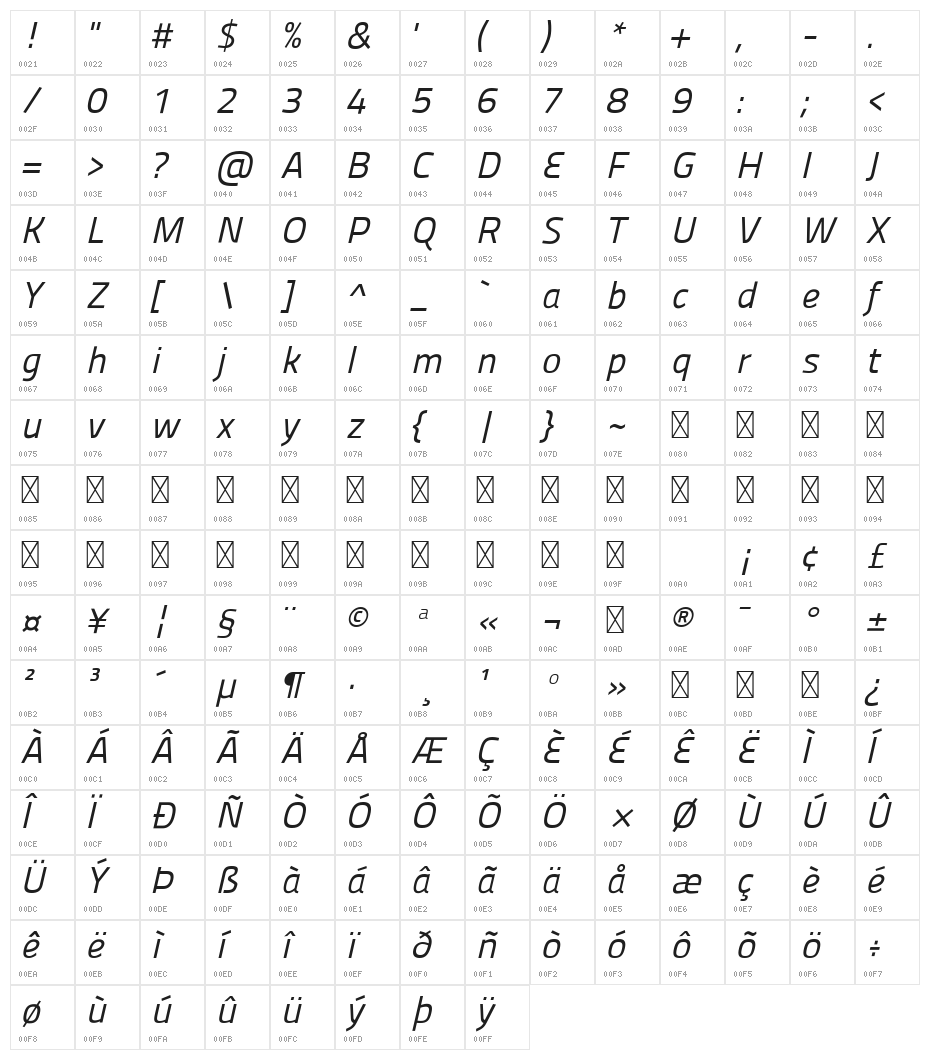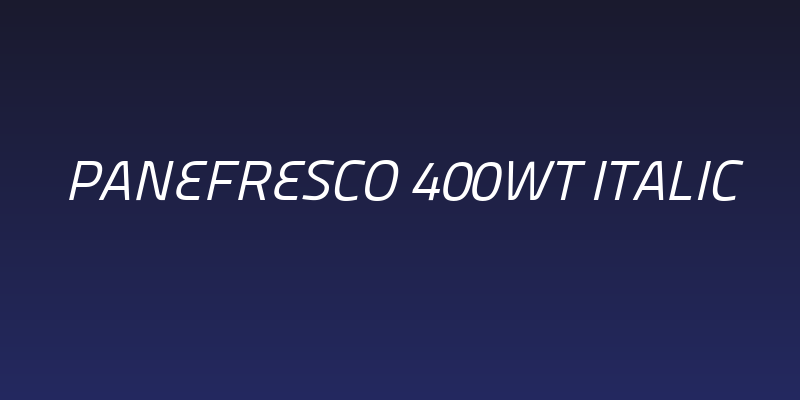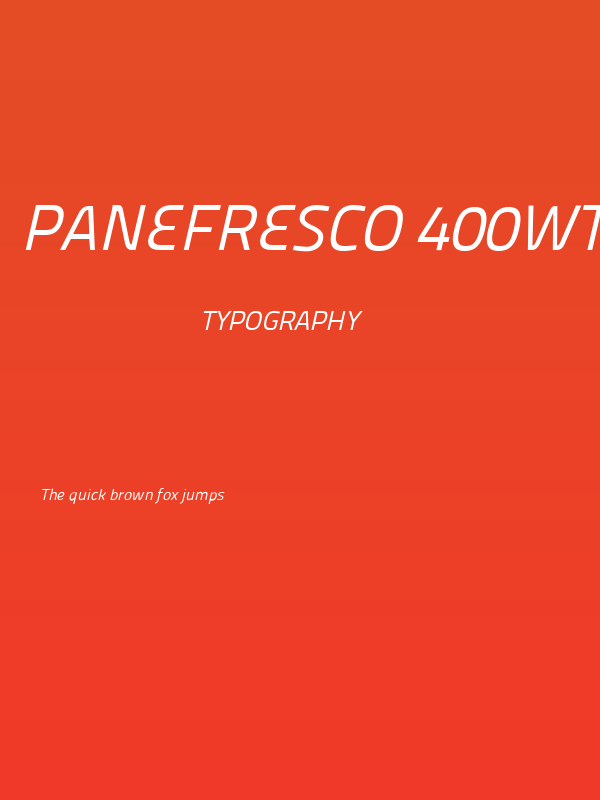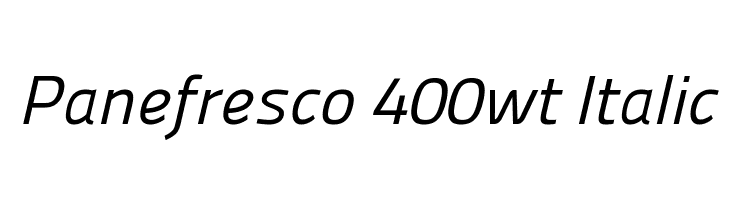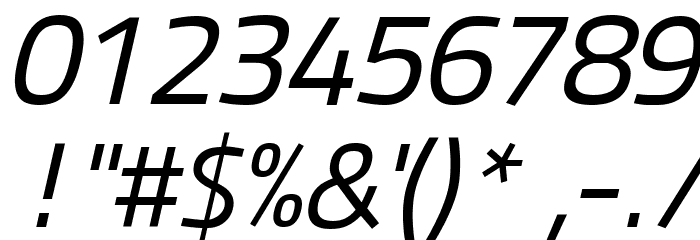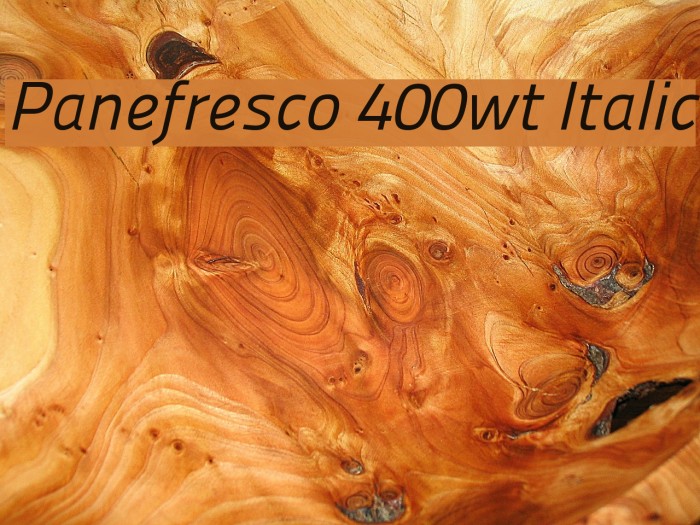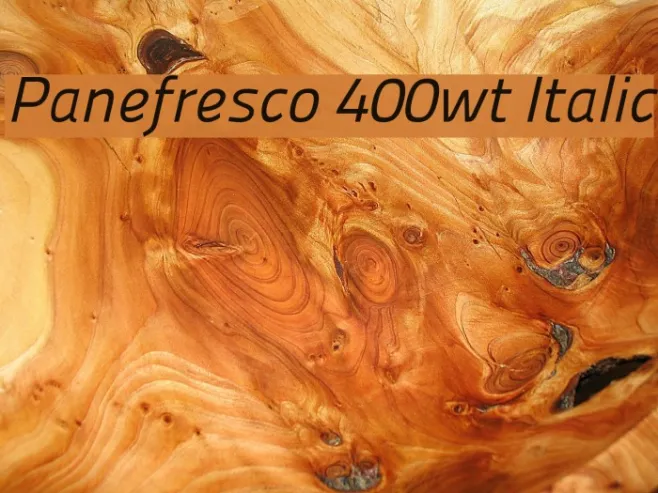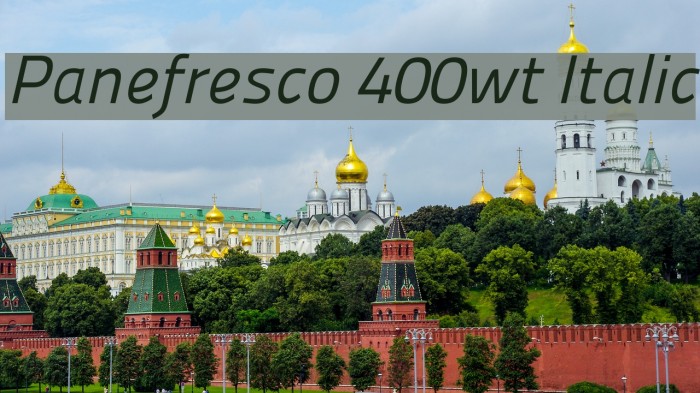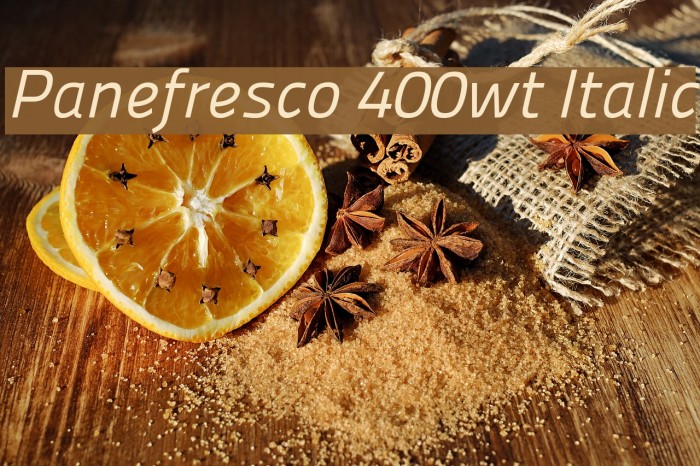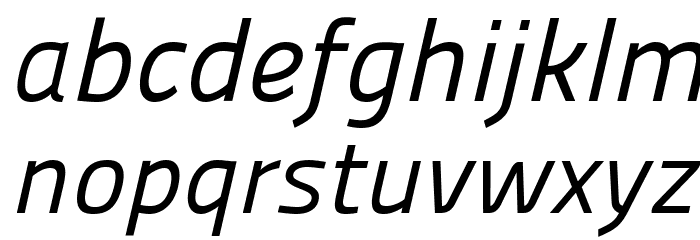
Panefresco 400wt Italic Font
Panefresco 400wt Italic Description
This font features a sleek and modern design with a slight italic slant, giving it a dynamic and forward-moving appearance. The characters are well-proportioned with a consistent stroke width, providing a clean and professional look. The uppercase letters are slightly taller than the lowercase, maintaining a balanced and readable structure. The numerals are clear and distinct, ensuring legibility in various contexts. Special characters are designed with the same attention to detail, making them suitable for a wide range of applications.
| Use Case | Headlines, Body text, Logos |
| Proposed Projects | Ideal for branding, advertising, and editorial design where a modern and professional look is desired. |